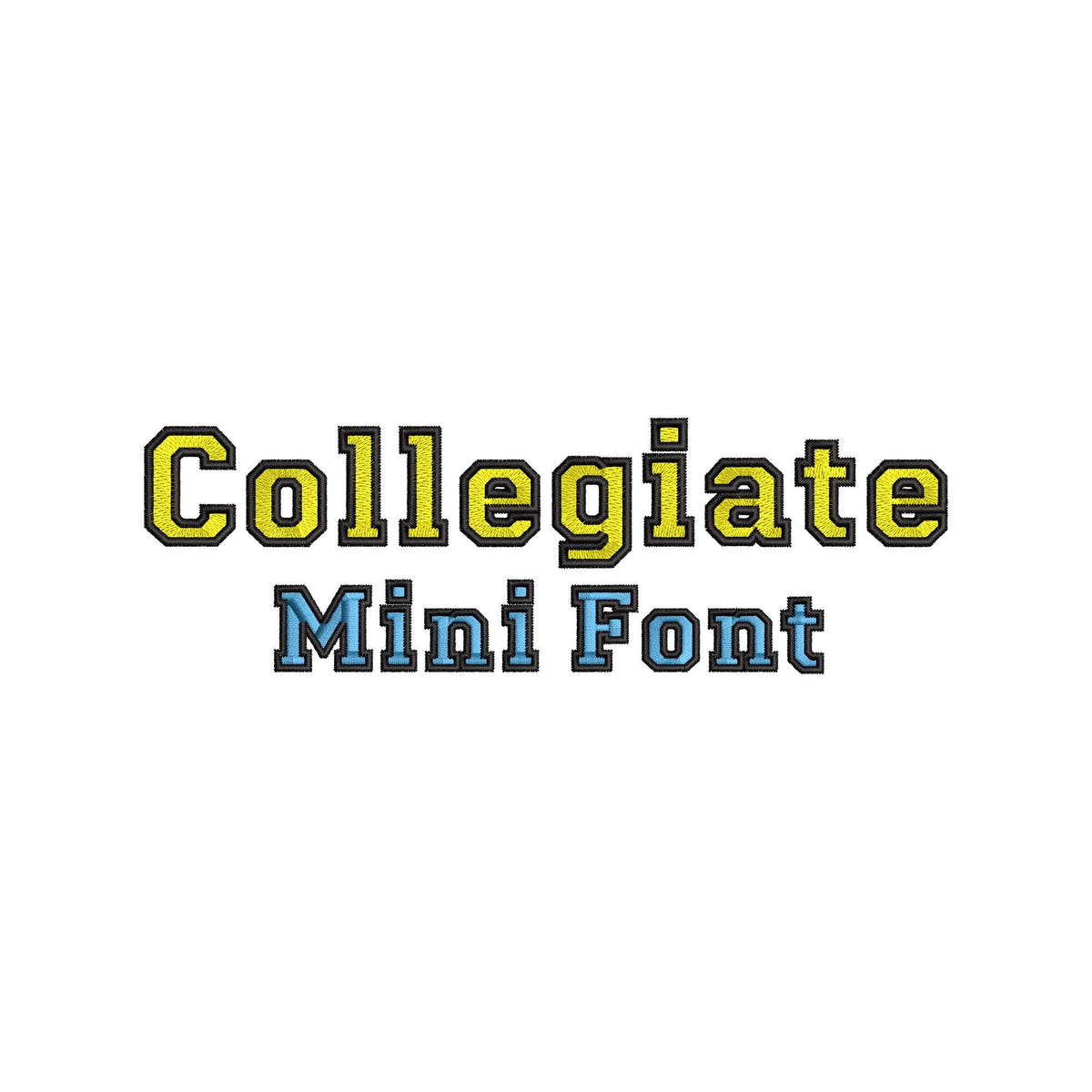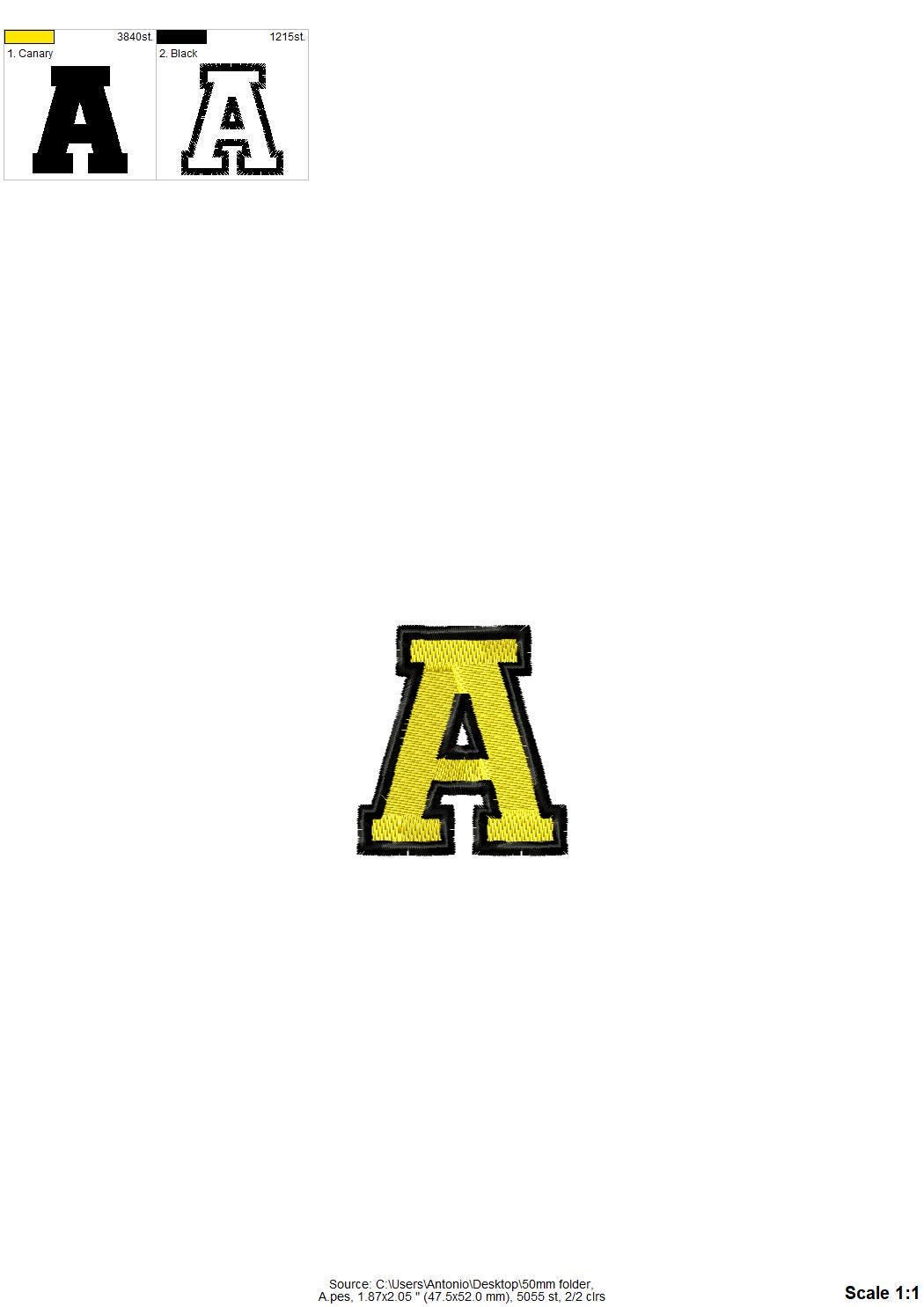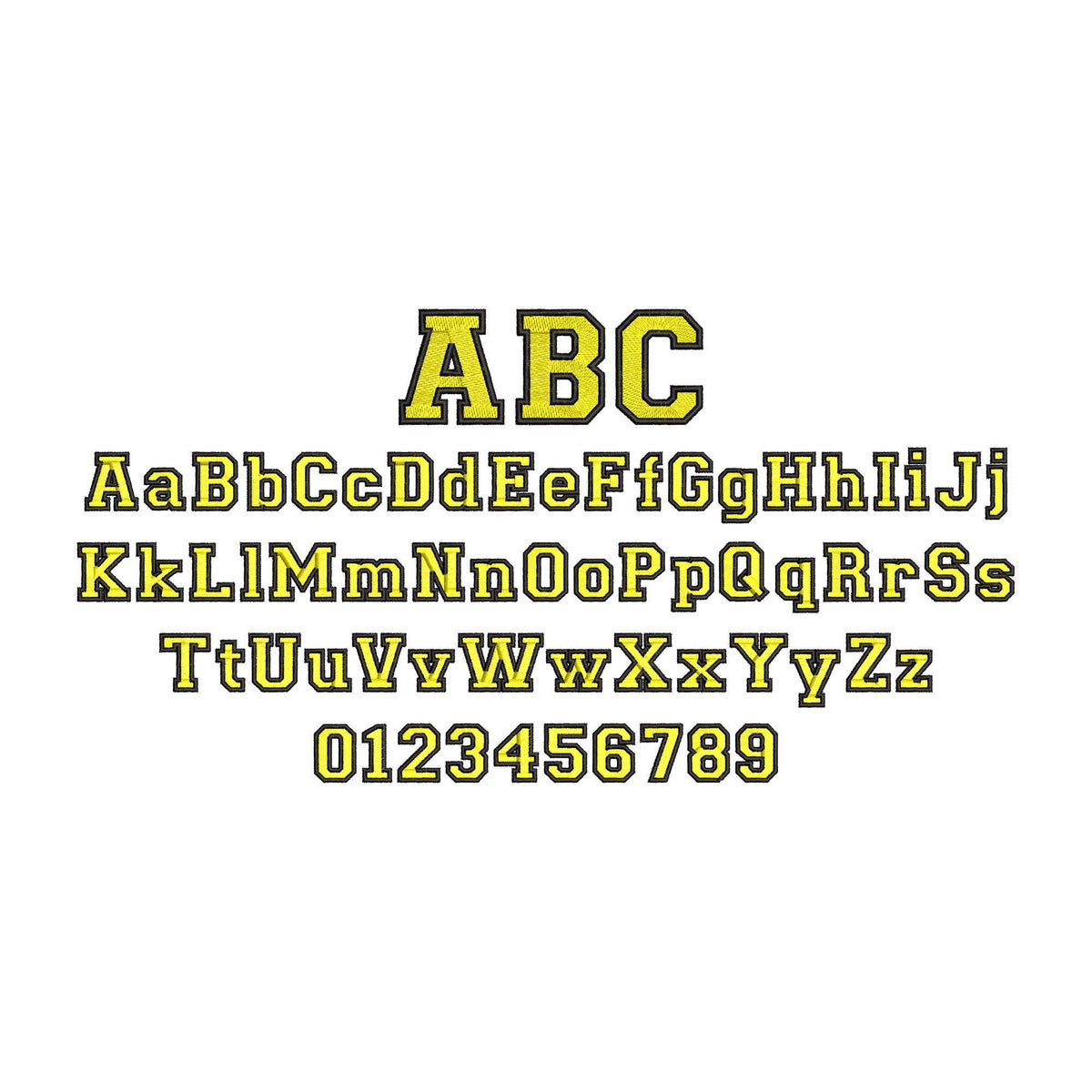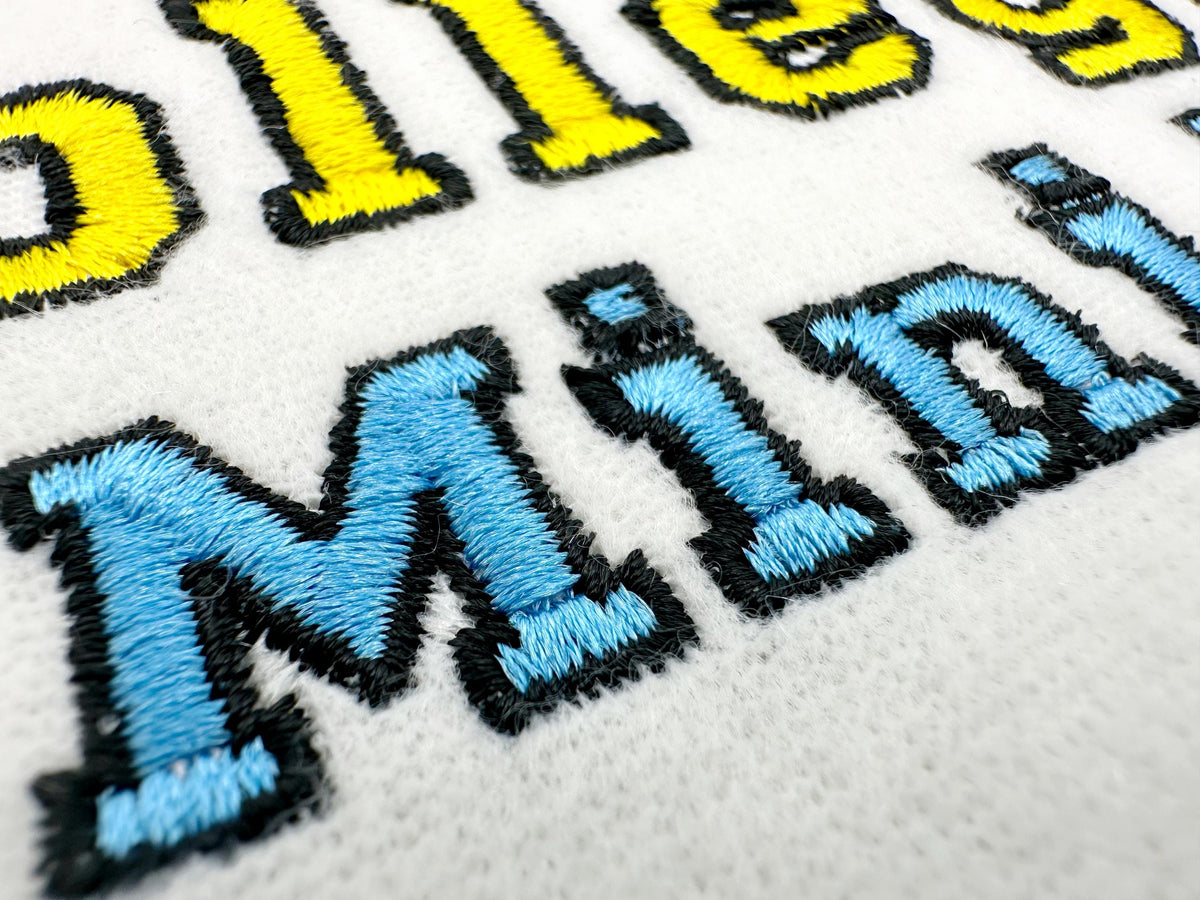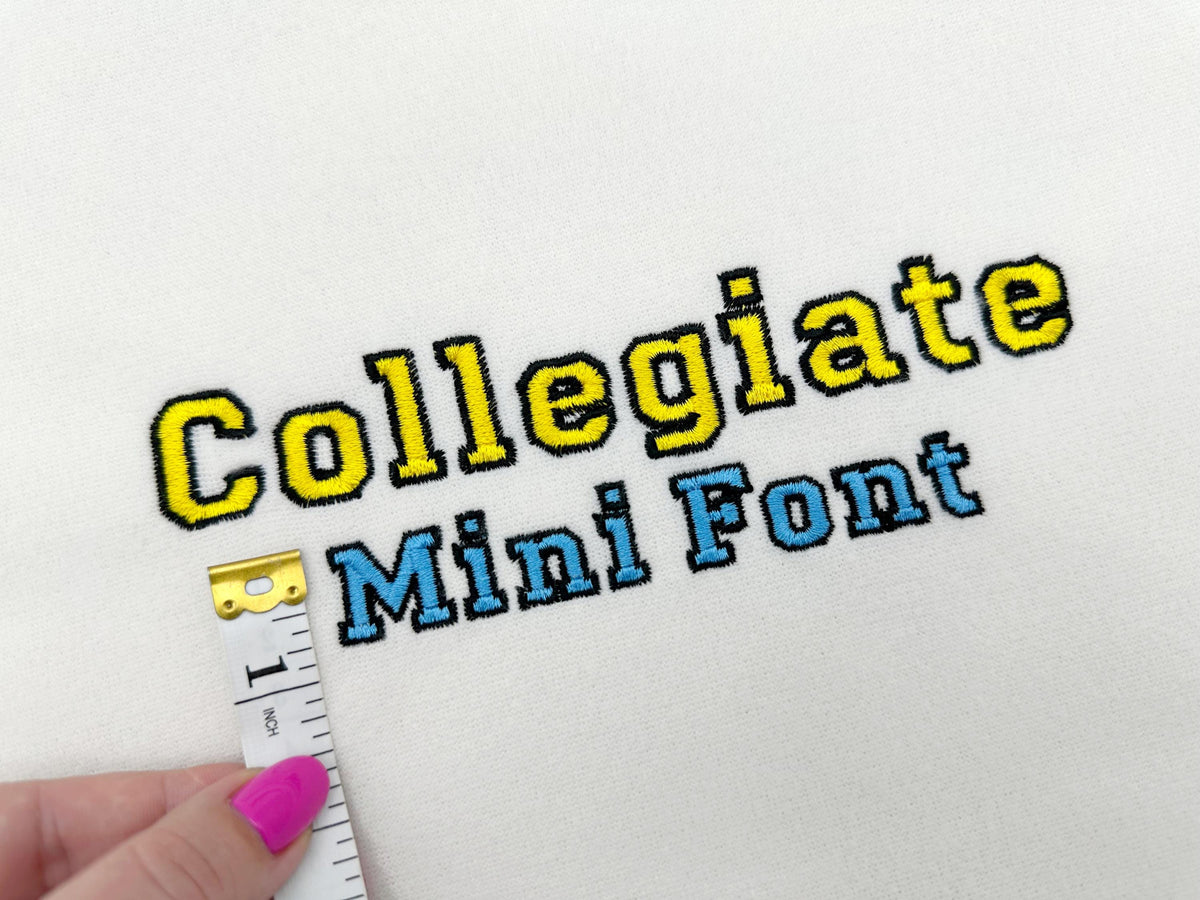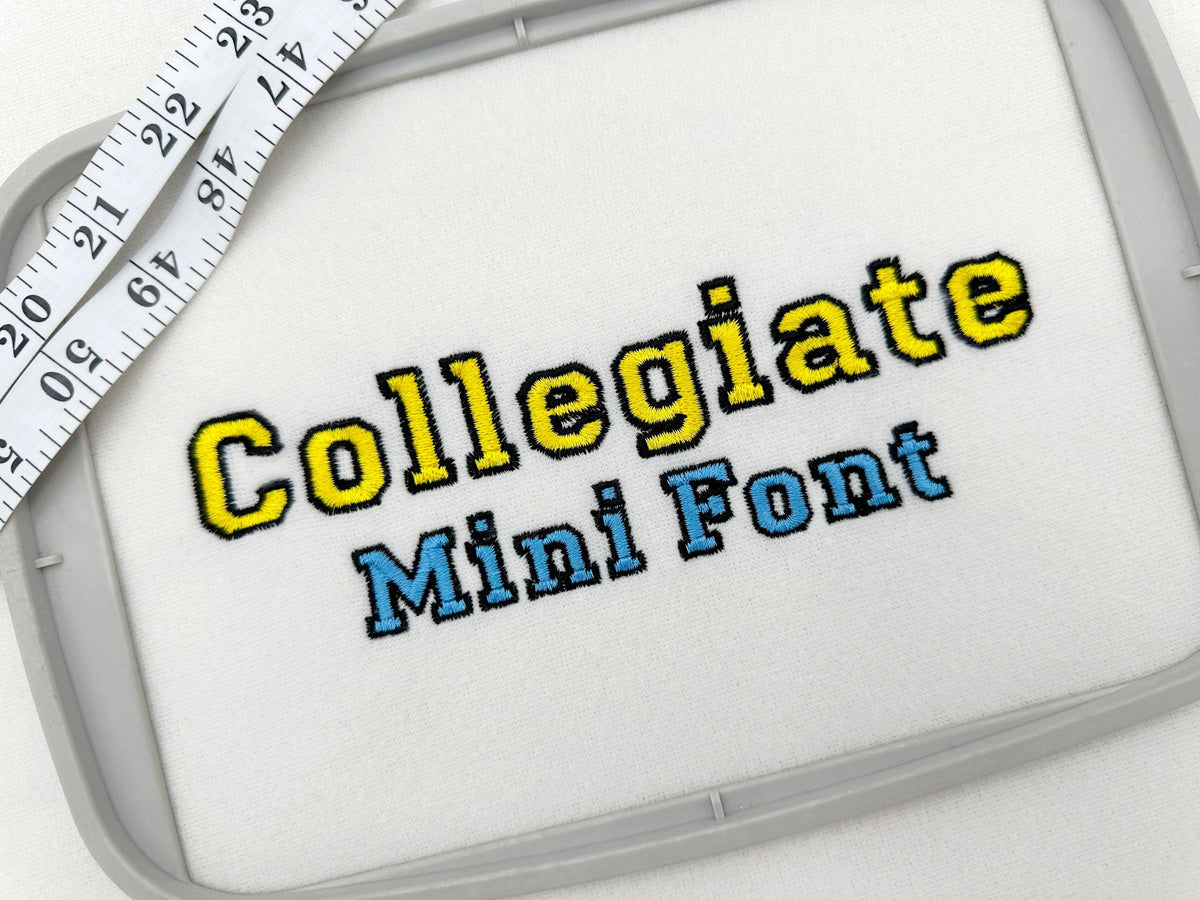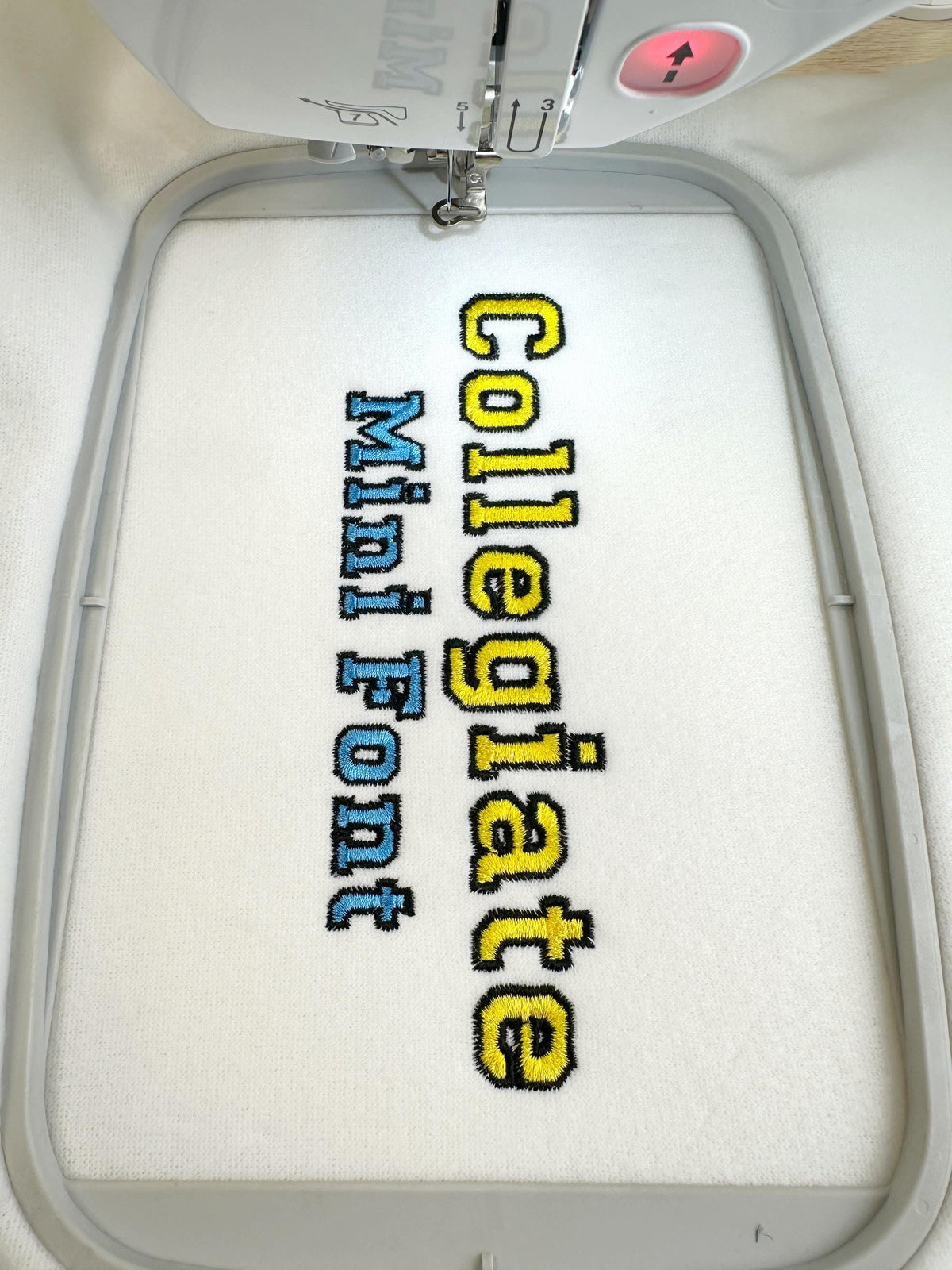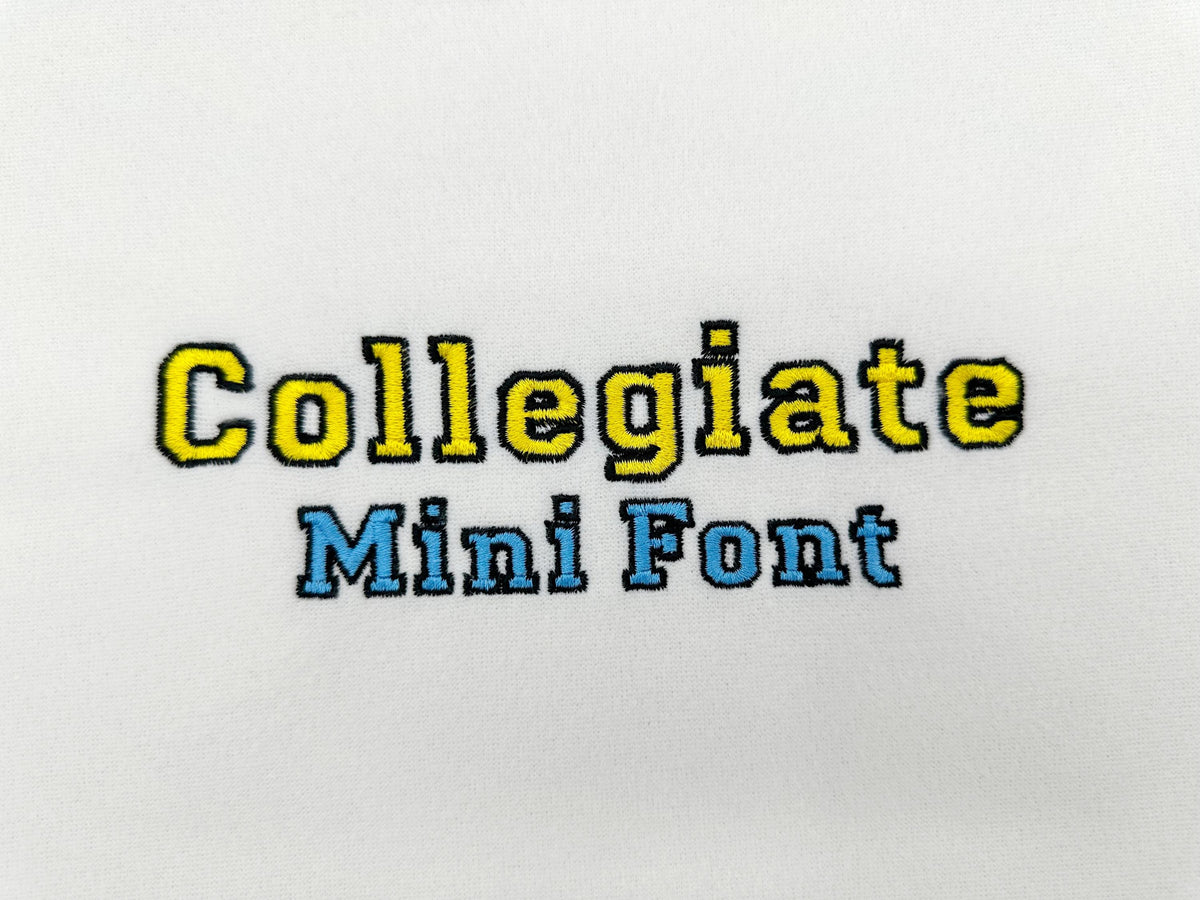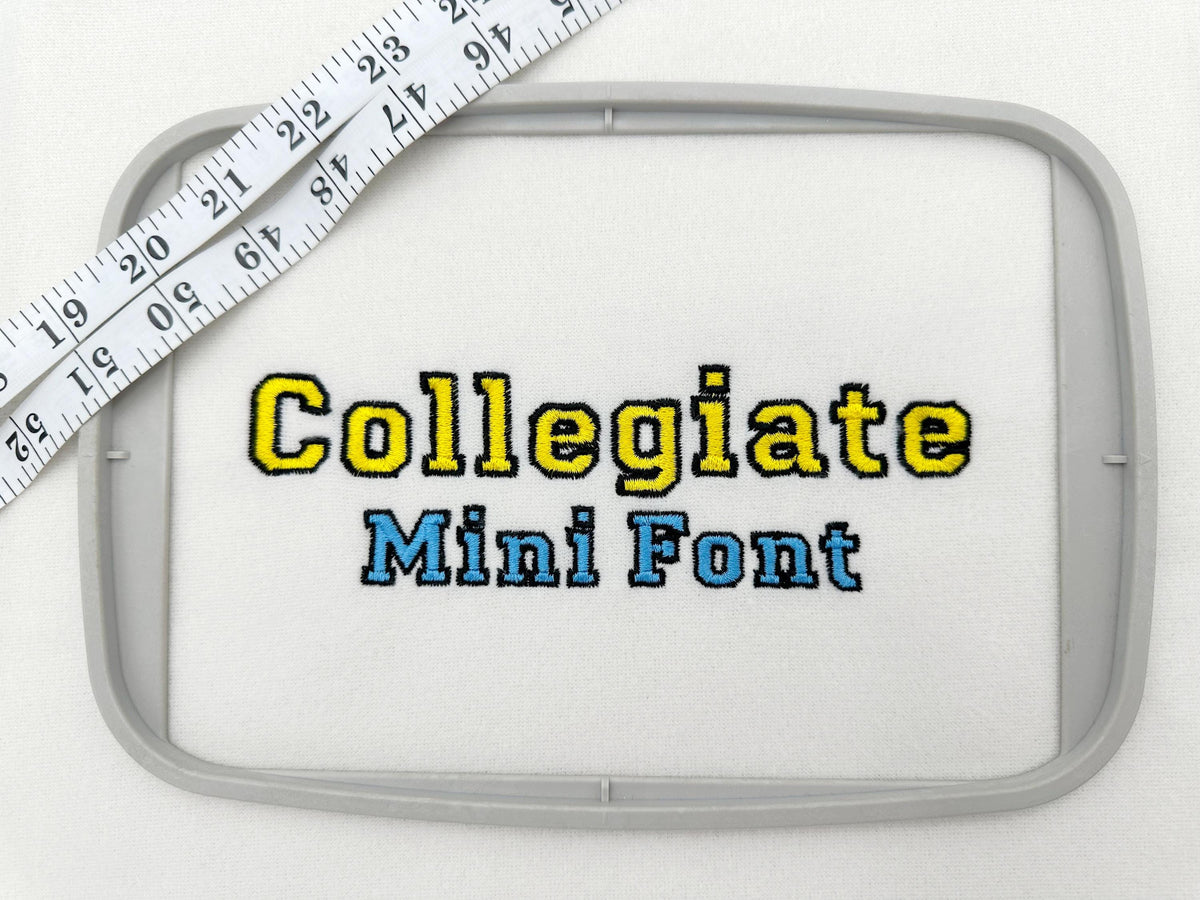
Sport Collegiate Block Mini Font
Or click to open the linkA mini sport collegiate block font. Made for small team names, caps, sleeves and pockets.
The letters come in six mini sizes: 0.7 and 0.8 inches in satin stitch, and 1, 1.2, 1.6 and 2 inches in fill stitch with an outline. Includes uppercase and lowercase letters A to Z and numbers 0 to 9.
- Mini collegiate block font, satin and fill stitch
- Uppercase and lowercase letters, numbers 0 to 9
- 6 sizes, 0.7 to 2 in